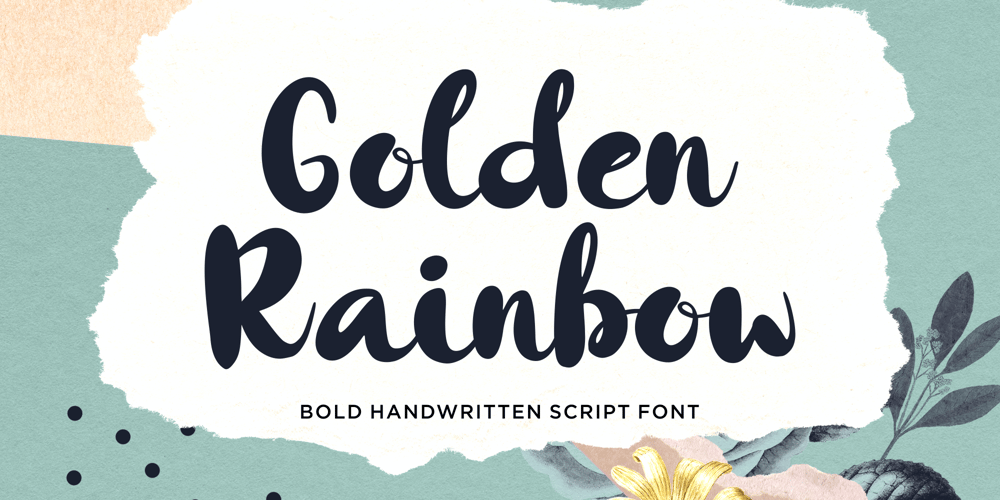
Golden Rainbow Font Family was designed by Annas Rifky Anhar and published by Essentials Studio. Golden Rainbow contains 1 styles and family package options. Golden Rainbow Is a A Fat Handwritten Script FontGolden Rainbow is perfect for product packaging, branding project, magazine, social media, wedding, or just used to express words above the background.